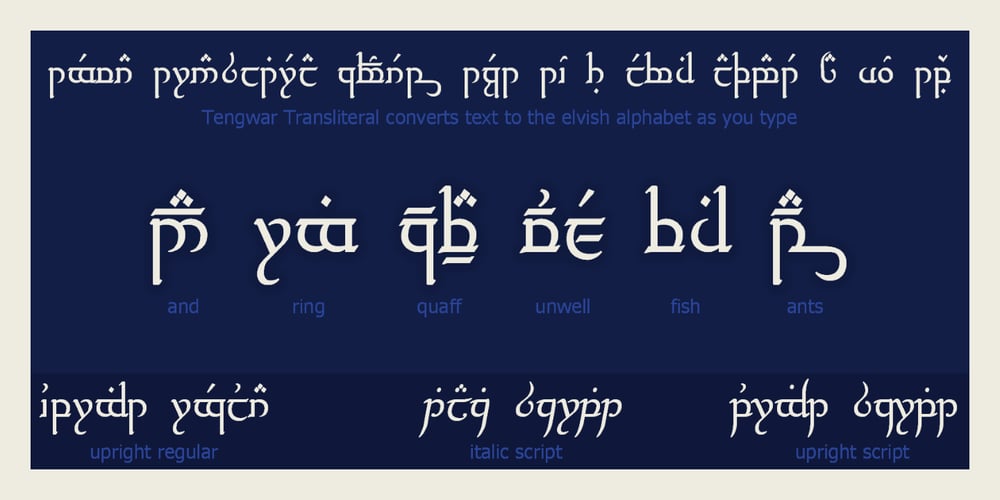
Tengwar Transliteral Font Family was designed by Richard Wheeler and published by Zephyris. Tengwar Transliteral contains 1 styles and family package options. You can read more about how to use this font and how it works here. This font lets you write in accurate Tengwar (elvish) quickly and easily. While writing his Middle Earth books, JRR Tolkein invented an entire alphabet for the elves called Tengwar. His attention to detail was incredible, Tengwar is a fully functioning writing system. This is the famous Elvish writing seen all through Lord of The Rings and the Hobbit. Tengwar is an alphabet, not a language, and can be used to write many languages. Tolkein gave detailed notes on how to write English in the Tengwar alphabet. This font uses advanced font features (contextual alternates, ligatures and kerning) to automatically convert any English text, as you type, into an accurate representation in the elvish Tengwar alphabet.